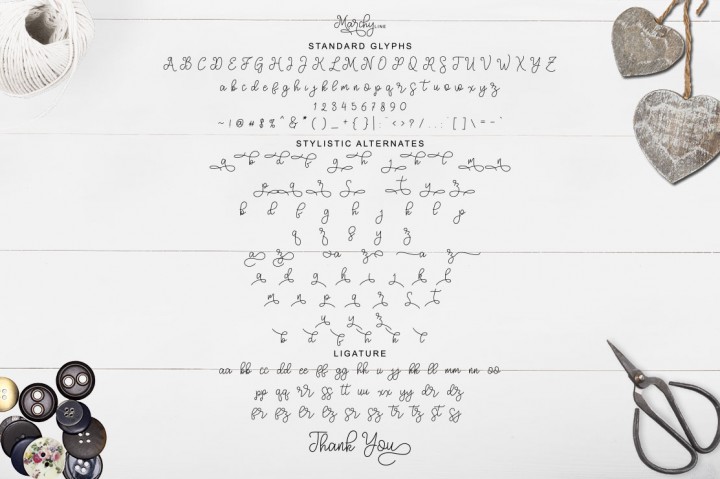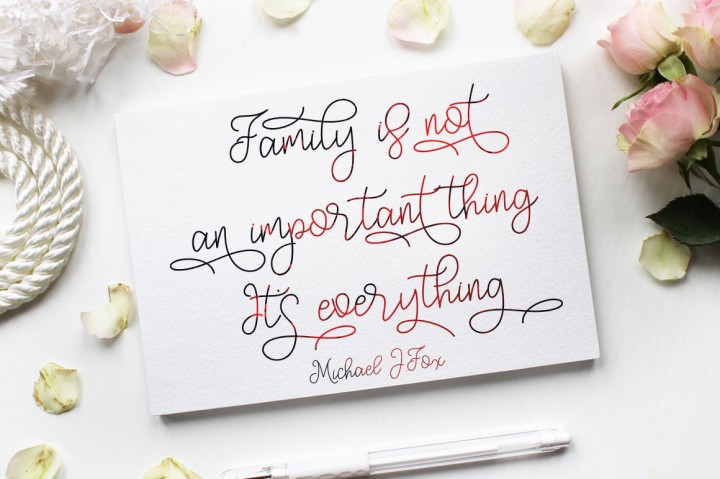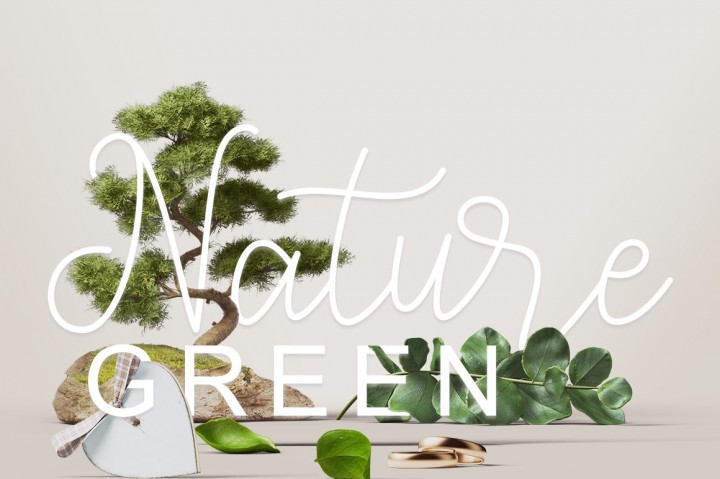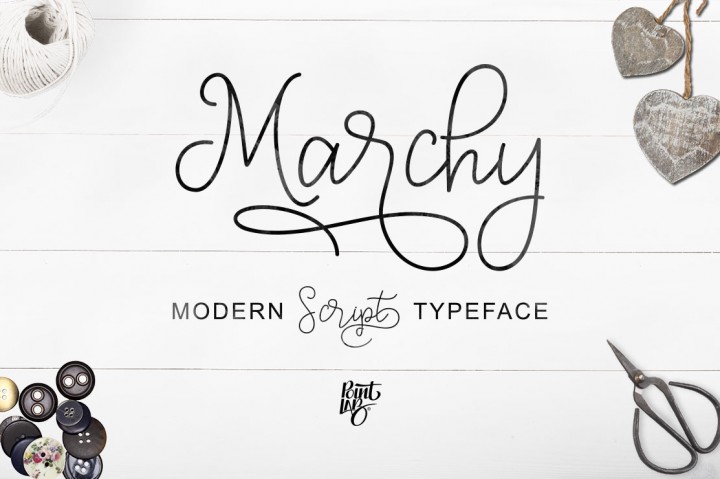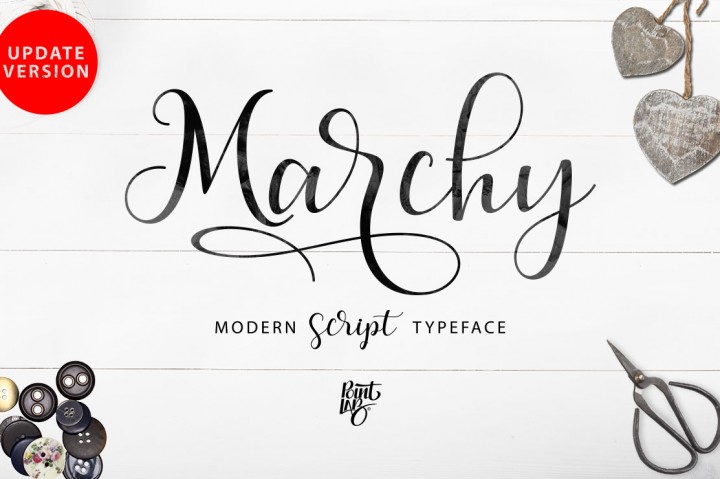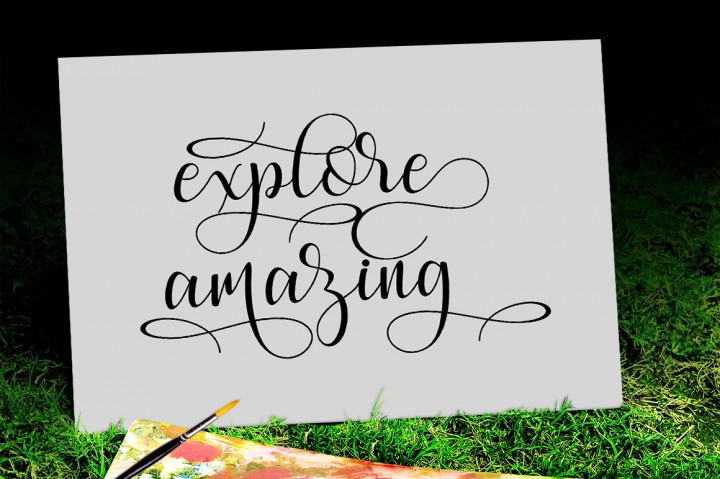
Introduction to Marchy Font
Marchy Script is a stunning handmade calligraphy style font created by PointLab.
The Marchy font comes in 3 versions: Marchy Script Marchy Line Marchy Sans These decorative fonts work great together The Marchy Script font features over 430 unique handmade glyphs.
Key Features of Marchy Font